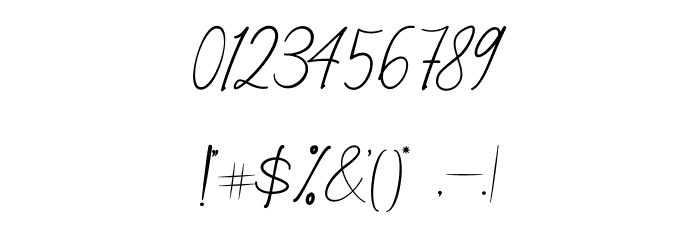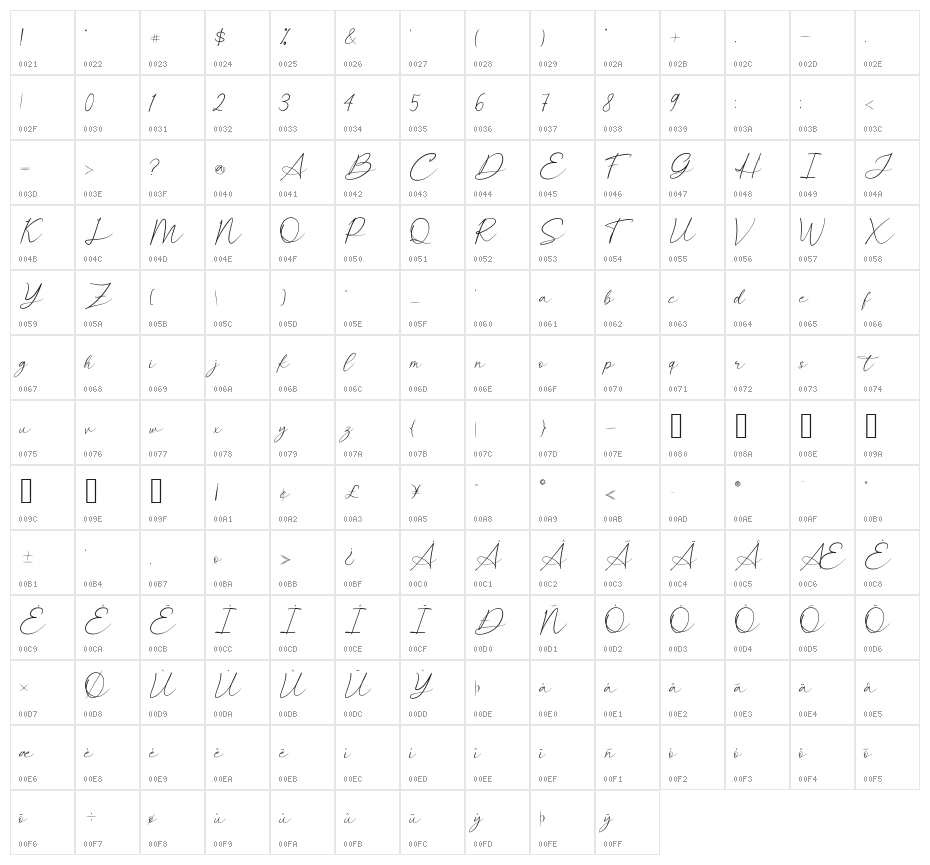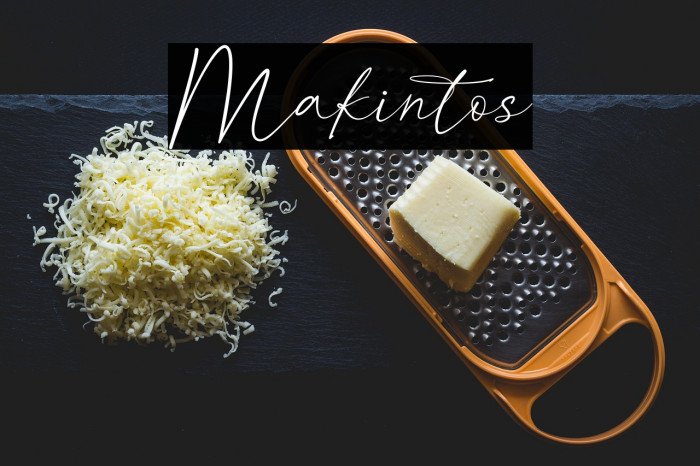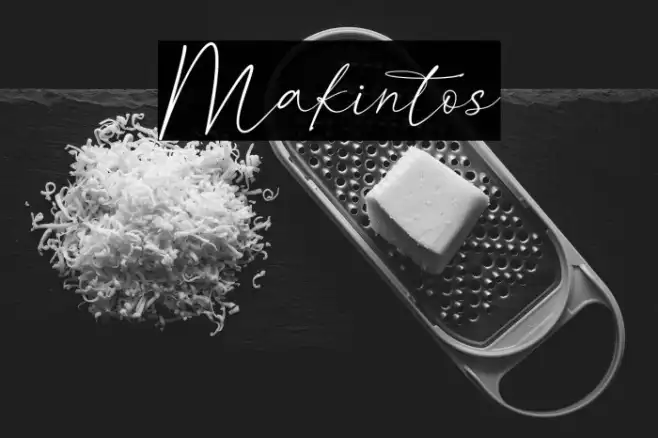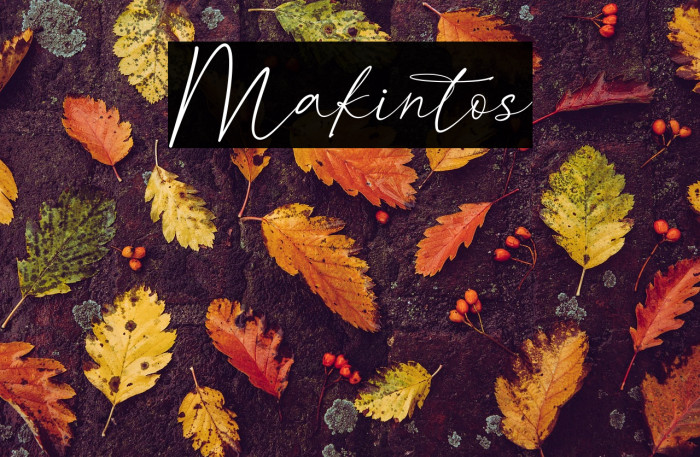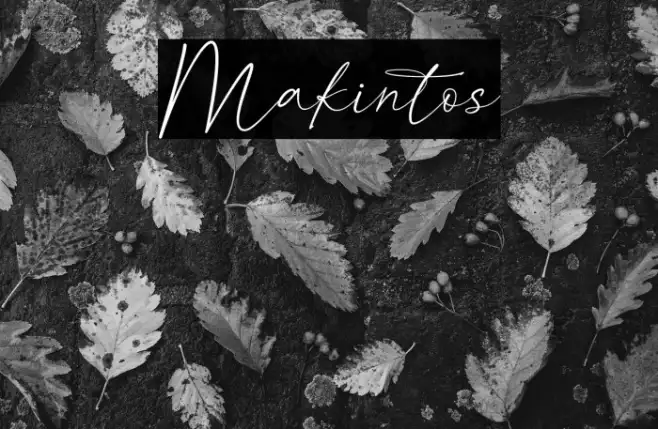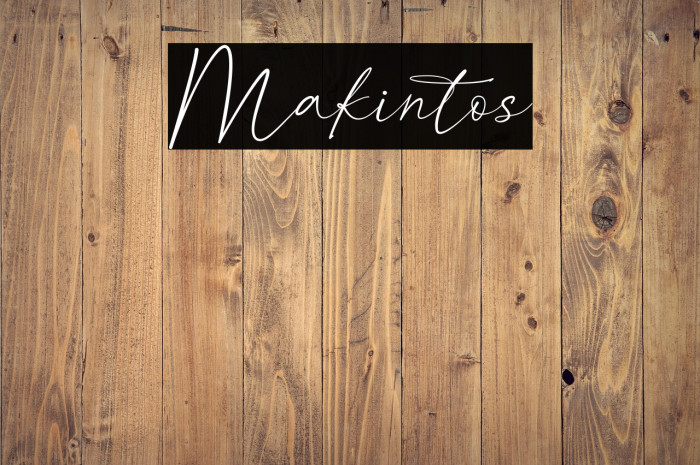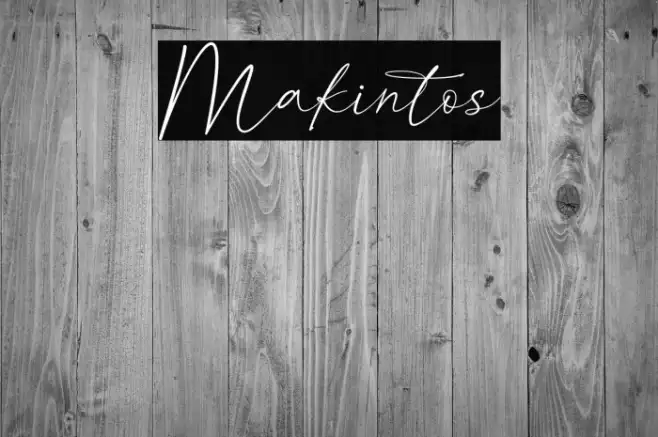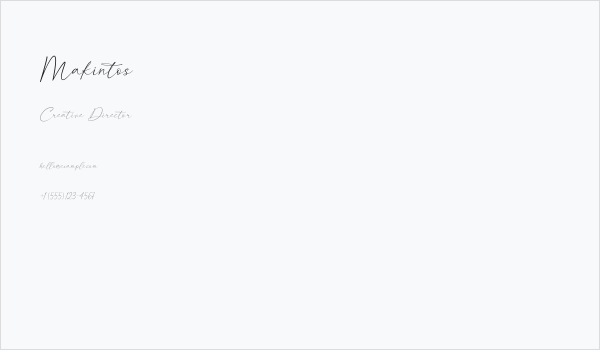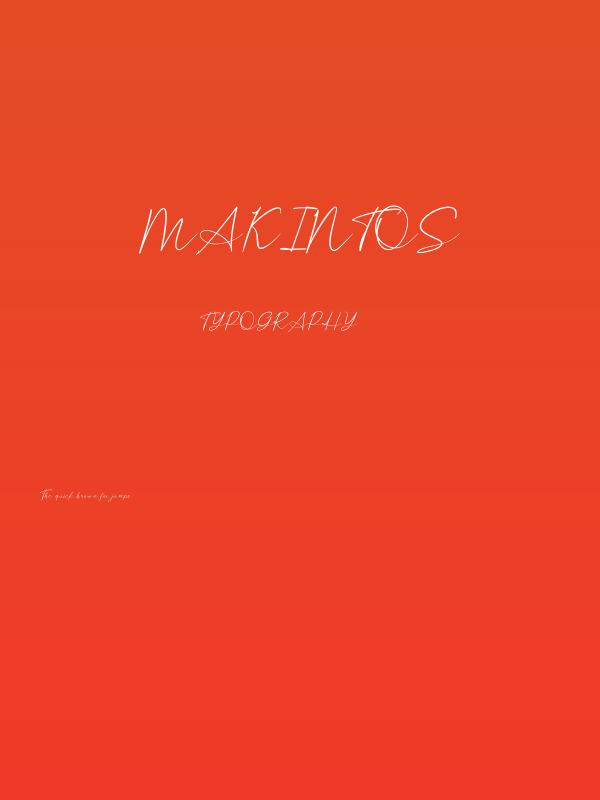
Makintos Font
Makintos Description
This font exudes elegance and sophistication with its fluid, cursive style. The letters are gracefully connected, creating a seamless flow that mimics natural handwriting. Each character is meticulously crafted with delicate strokes and subtle curves, giving it a refined and artistic appearance. The uppercase letters stand tall with a slight slant, while the lowercase letters maintain a consistent rhythm and balance. The numerals and special characters are designed to complement the overall aesthetic, ensuring versatility across various applications. Its airy and light feel makes it ideal for projects that require a touch of elegance and personalization.
| Proposed Projects | Ideal for wedding invitations, personal branding, elegant stationery, and artistic projects. |